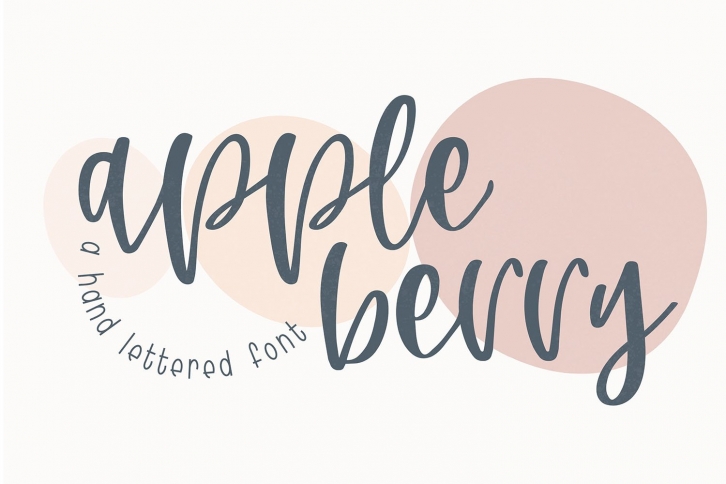
Appleberry is a great font that was designed by Dansie Design. Imagine the amount of combinations you can create using this font! The archive is 13.15 MB and it was released on November 3, 2021. Appleberry looks beautiful on wedding invitations, greeting cards, logos, posters, labels, t-shirt designs, logos, business cards and is perfect for use in ink or watercolor works, fashion, magazines, packaging and food menus, children's books and more!